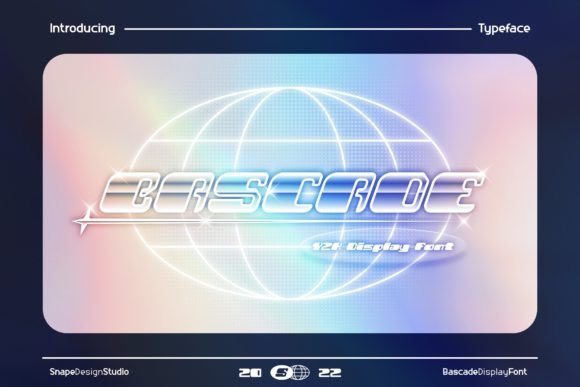
Unleash your imagination and transport yourself with Bascade – the dynamic display font that embodies the essence of the Y2K era, where technology, digital realms, and space galaxies collided.
Immerse yourself in a world of innovation with Bascade, the futuristic display font that's like a cosmic symphony of creativity. Its bold strokes and sleek lines evoke the vibrant energy of the digital age, captivating your audience and transporting them to a realm where imagination reigns supreme. Bask in its versatility, as it effortlessly adapts to a multitude of projects, from technological masterpieces to celestial adventures.
These fonts are meticulously crafted with the eyes of the beholder, ensuring that every letter is a visual masterpiece. Its bold, confident design demands attention, while its intricate details add depth and dimension. Bask in the beauty of its curves and the crispness of its edges, knowing that each letterform is a testament to the power of visual storytelling.
With Bascade, your creative expression knows no bounds. Dive into the world of movie titles, documentaries, logos, posters, games, book covers, headlines, and countless other projects, knowing that this font will elevate your designs to new heights. Its limitless potential is like a blank canvas, ready to be painted with your creative vision.
Soar through the cosmos and ignite your creative journey with Bascade, the font that will take your projects to infinity and beyond. It's more than just a font; it's an experience that will leave your audience awe-inspired.